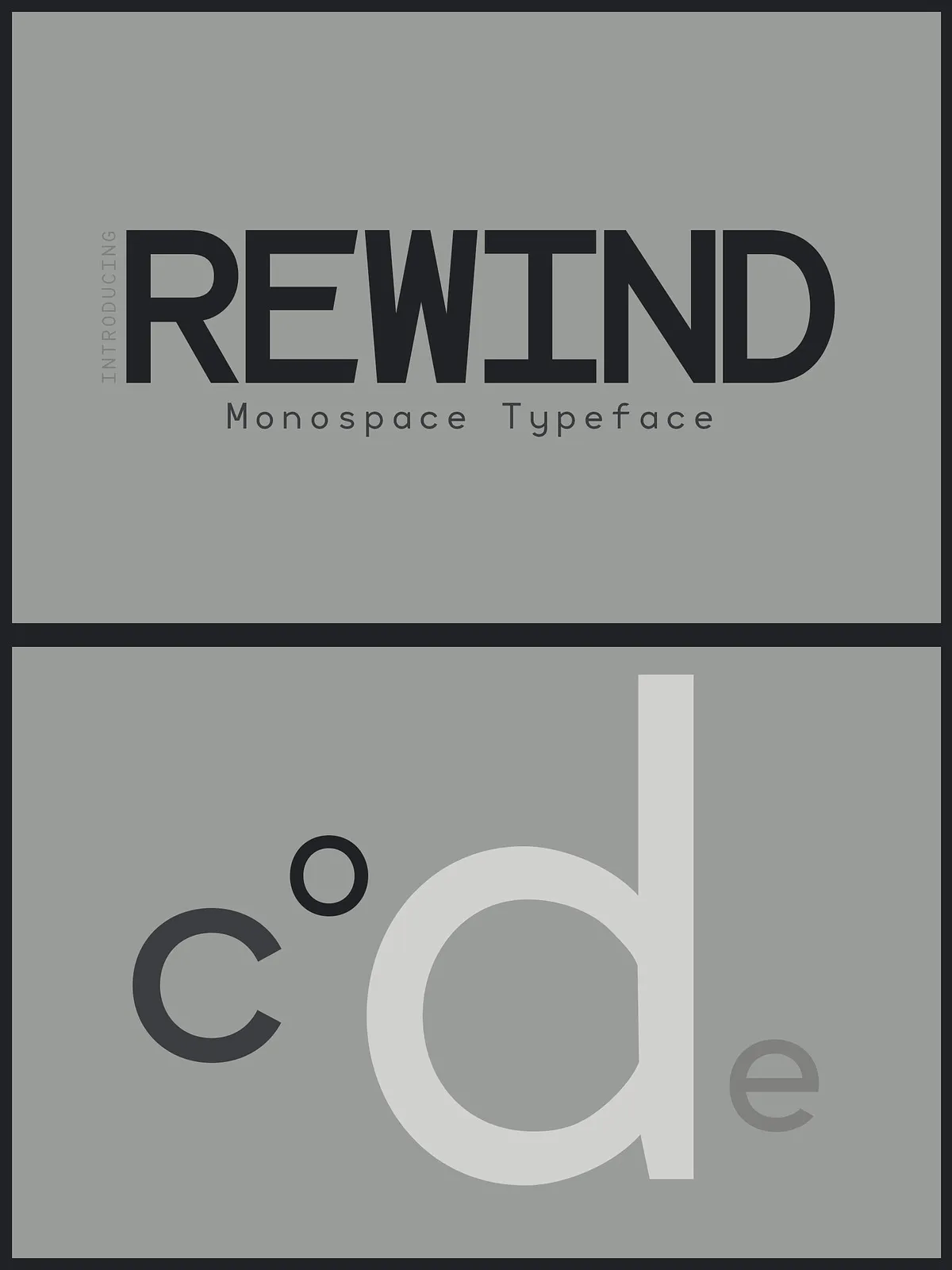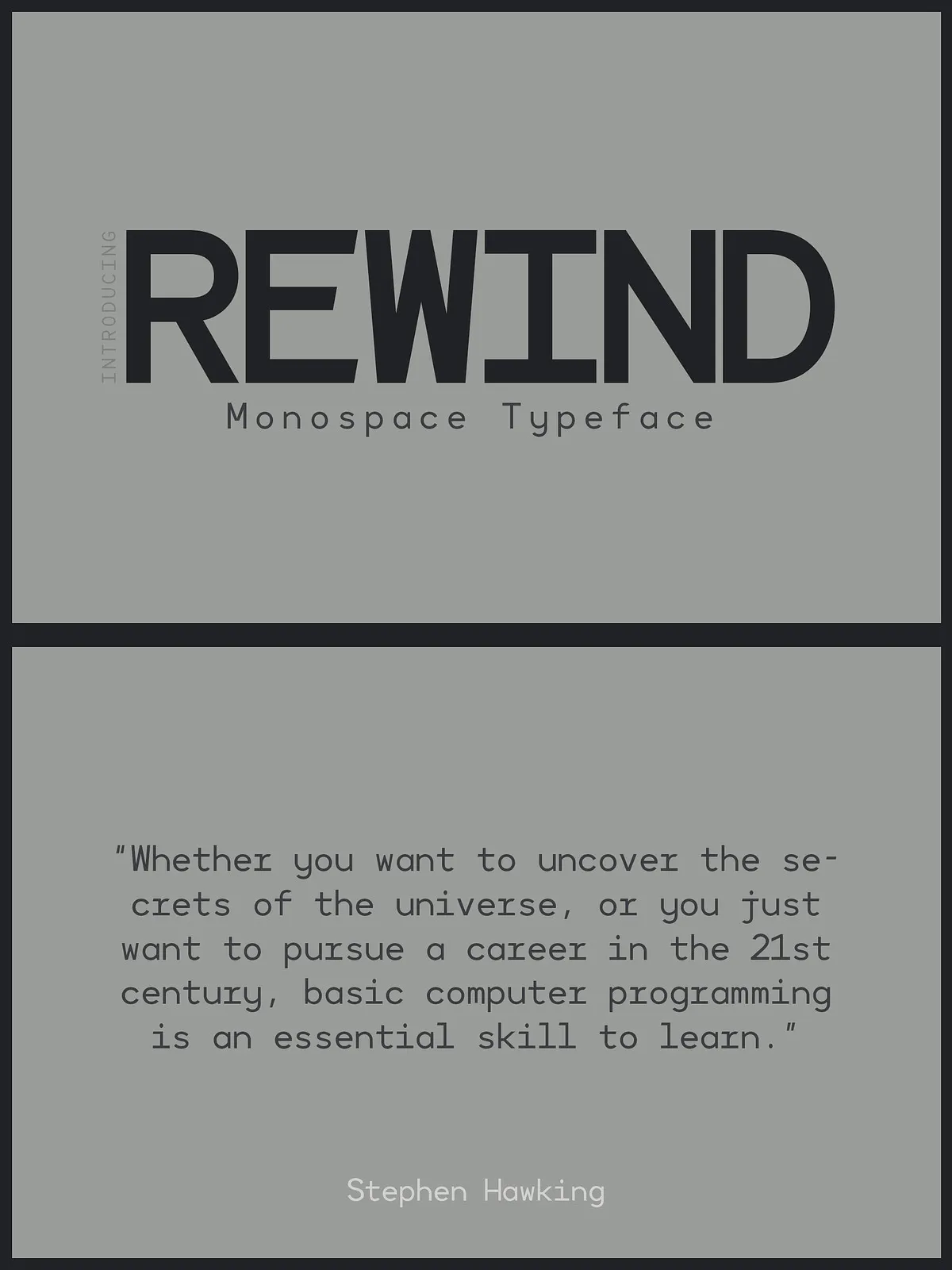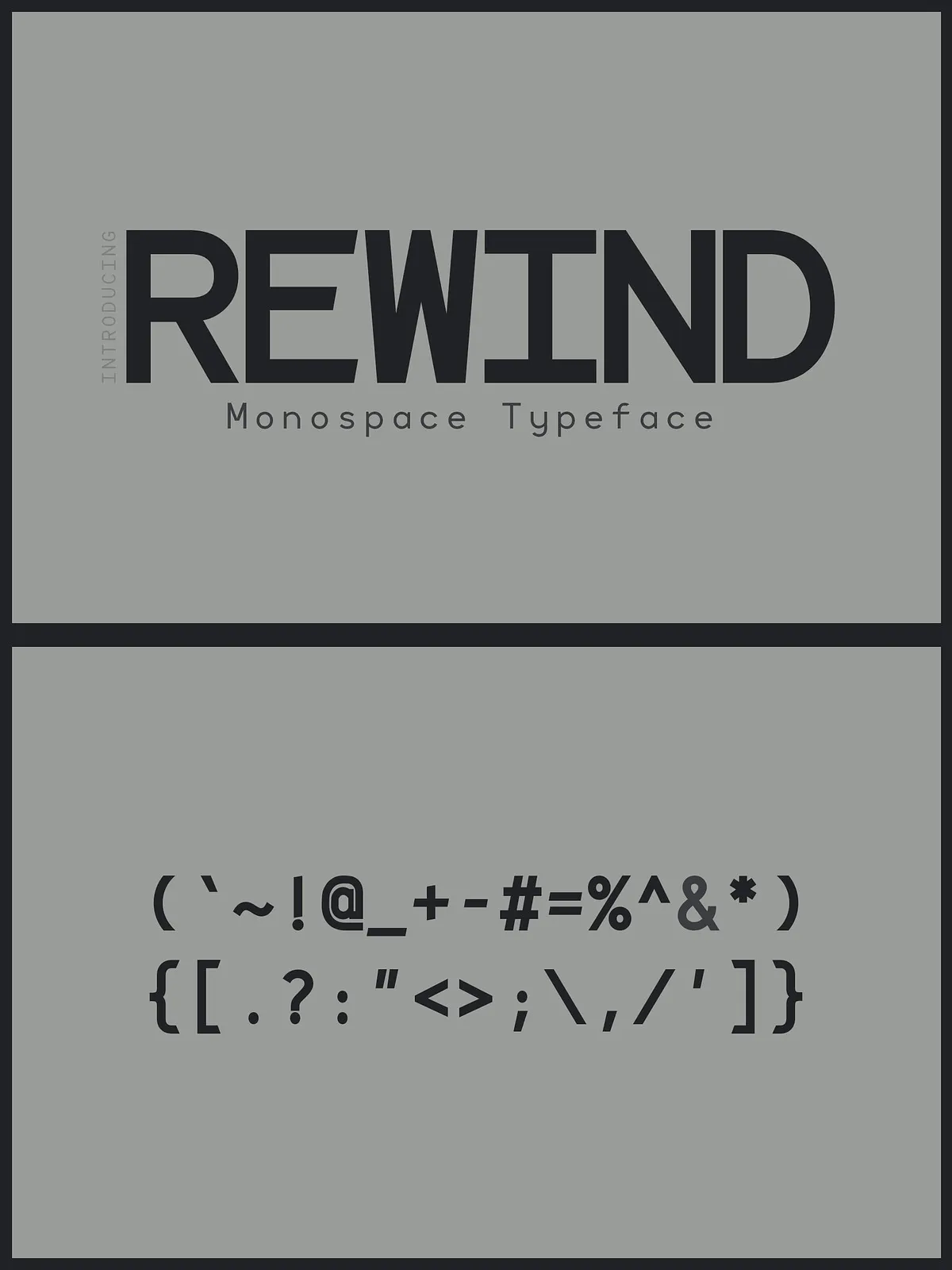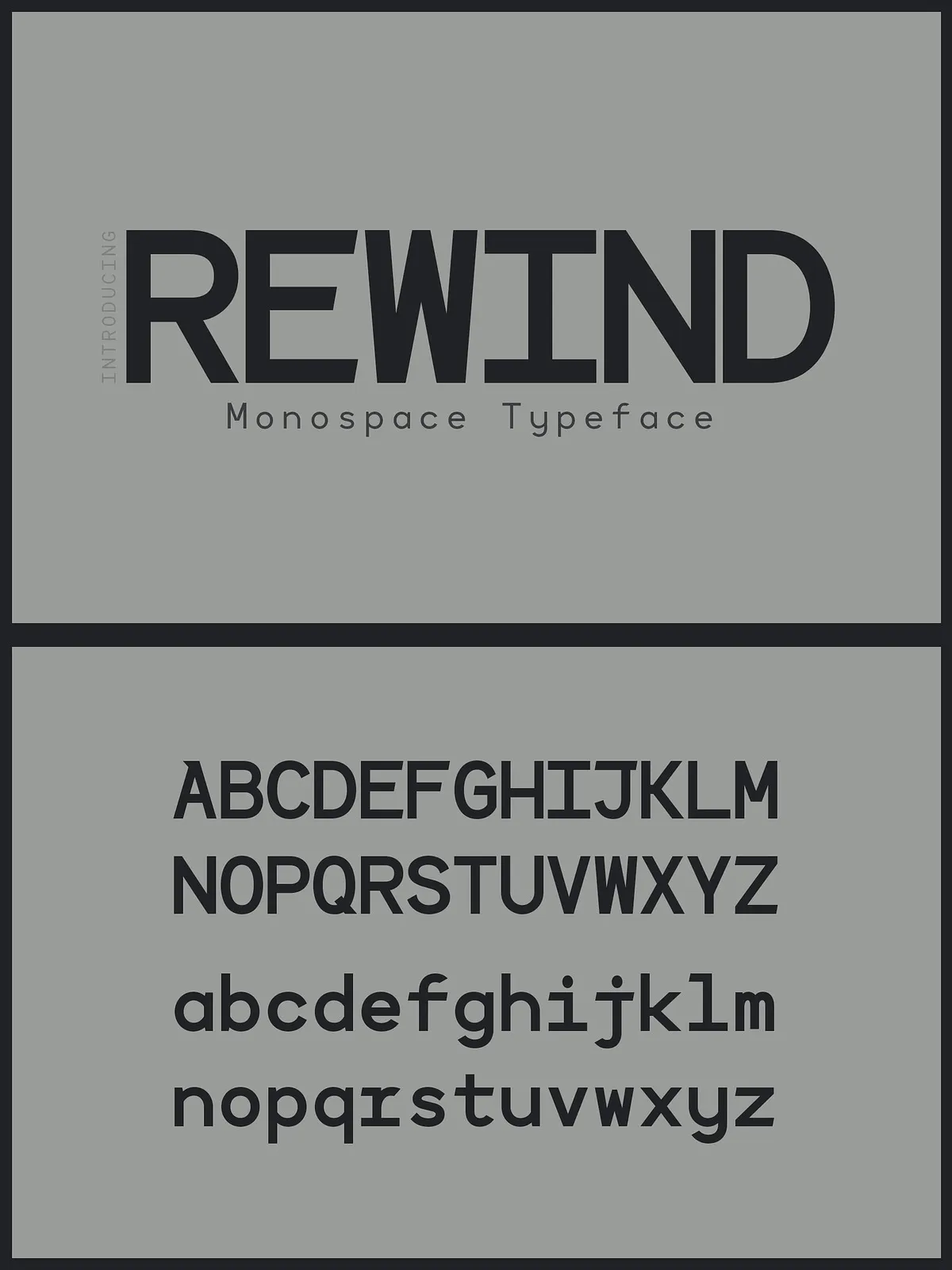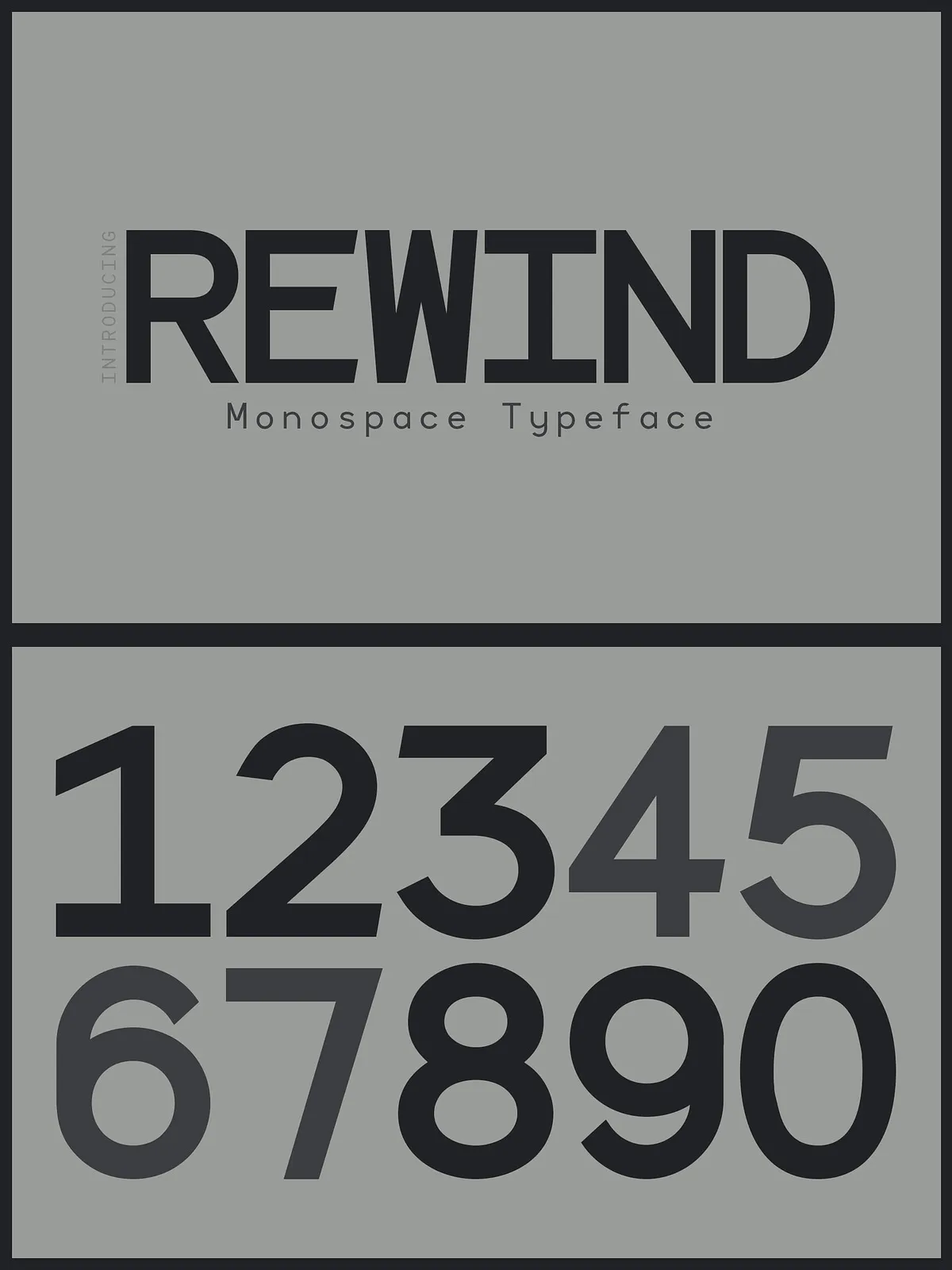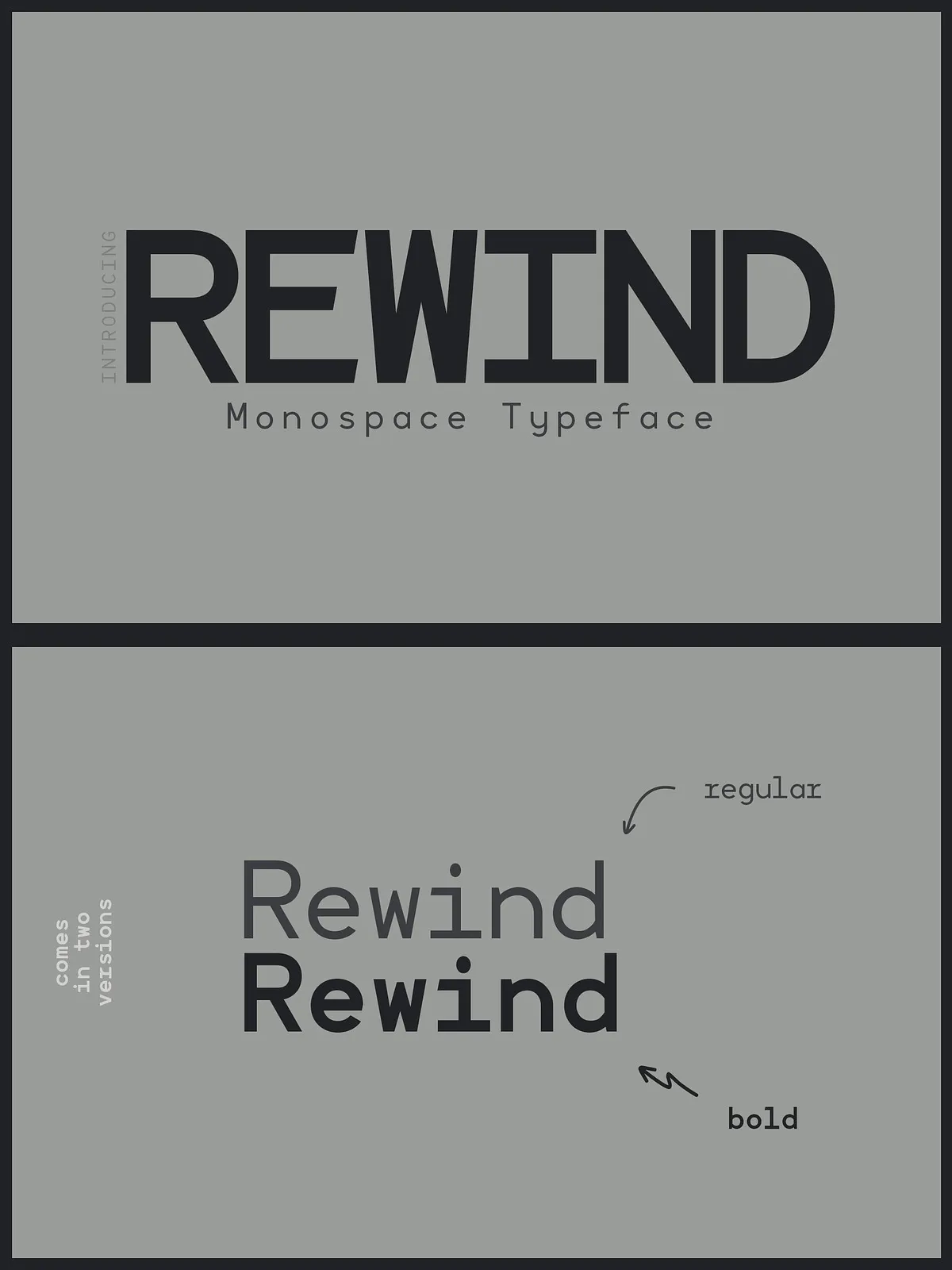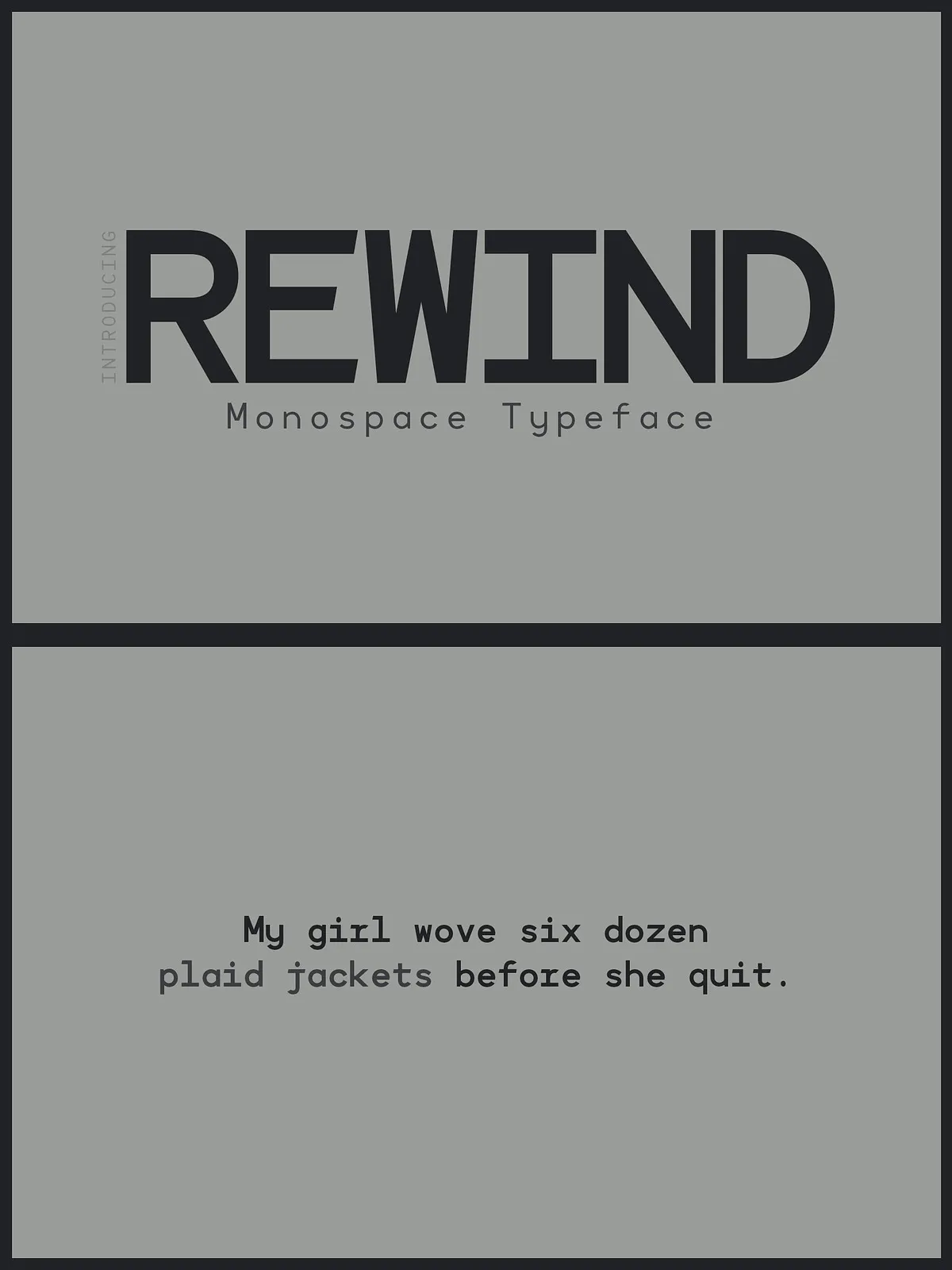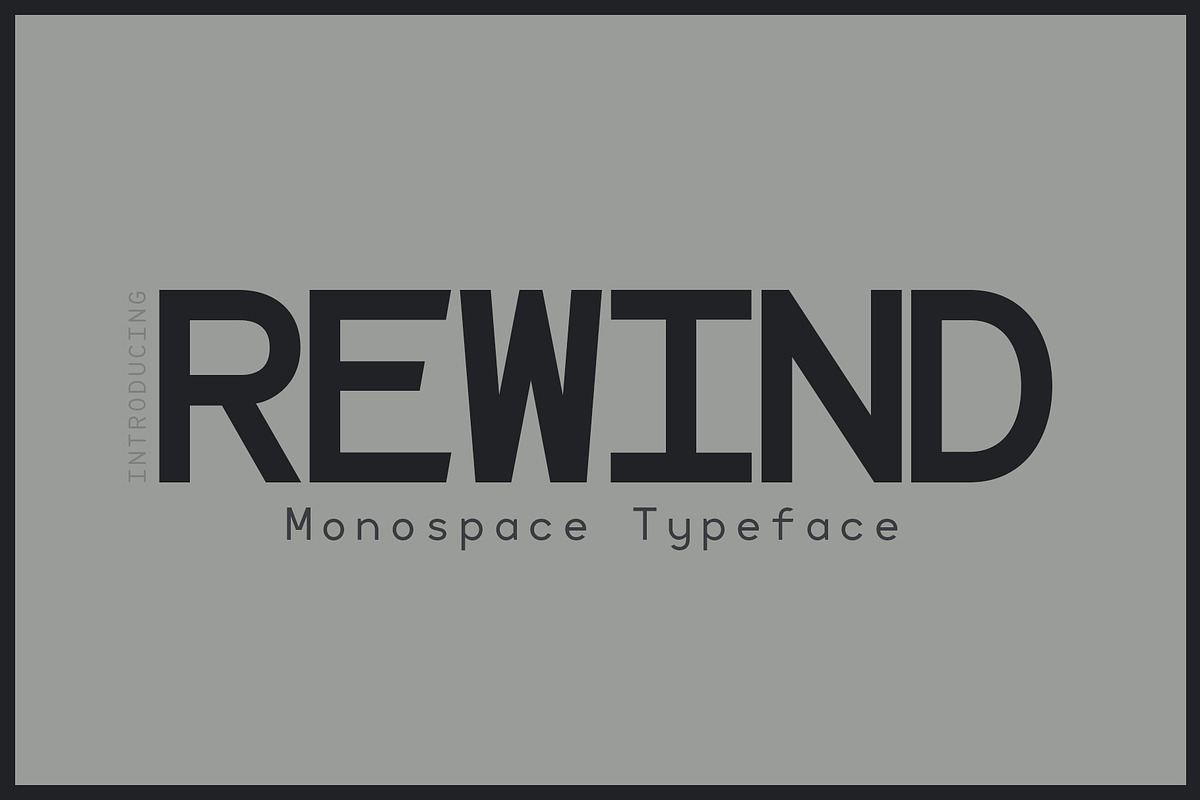
Unlock the raw, mechanical aesthetic of the 1980s with Rewind — a bold, technical monospaced sans-serif font forged from the spirit of vintage portable cassette players. Every character is engineered to evoke the gritty precision of analog technology, echoing the clunky charm of tape reels, metal casings, and illuminated digital displays. This isn’t just a font — it’s a visual time capsule that commands attention and sparks nostalgia.
Rewind is designed for creators who want to stand out in a digital world ruled by sleek minimalism. With its rigid, industrial structure and slightly uneven stroke dynamics, this typeface brings mechanical authenticity to your project — ideal for brands, campaigns, and visual narratives that thrive on retro-futurism and analog authenticity.
Powerful Design, Unlimited Application
Rewind delivers versatility through two powerful styles: Regular and Bold. Whether you’re creating a high-contrast brand identity, designing packaging with vintage flair, or crafting eye-catching subtitles for a retro-themed film, Rewind adapts with precision and presence.
Perfect For:
- Tech branding and startups — Convey reliability and retro innovation for hardware, apps, or digital services.
- Advertising and social media content — Make your message stand out with bold, mechanical typography.
- Product packaging and labels — Add industrial edge to tech gadgets, music boxes, or limited-edition merchandise.
- Airline and transit signage — Use for digital displays with a vintage tech vibe.
- Movie subtitles and film title sequences — Perfect for neo-noir, cyberpunk, or 80s-inspired storytelling.
- Stationery and print collateral — Elevate business cards, envelopes, and event invites with authentic retro texture.
More Than Just a Font — A Full Creative System
Rewind isn’t a standalone design element. It’s the foundation of a complete visual language. Its monospaced structure ensures perfect alignment in data-driven layouts, code mockups, and terminal-style visuals — making it equally strong in technical documentation and creative storytelling.
With its clean but rugged character forms, Rewind supports Latin-based multilingual text, punctuation, numerals, and special symbols. It’s ready for international use, whether you’re designing a global campaign or a local retro music festival flyer.
Why Rewind Stands Out
Unlike generic monospaced fonts that feel sterile or robotic, Rewind is deliberately imperfect. Slight variations in stroke weight and slight irregularities in character spacing mimic the mechanical nature of vintage cassette players — giving your design authenticity, depth, and soul.
Rewind doesn’t just communicate text — it tells a story. It’s for the designer who respects the past while building the future. It’s for those who know that style is not noise, but intention.